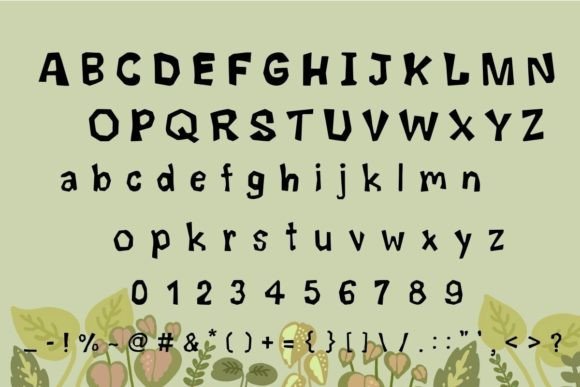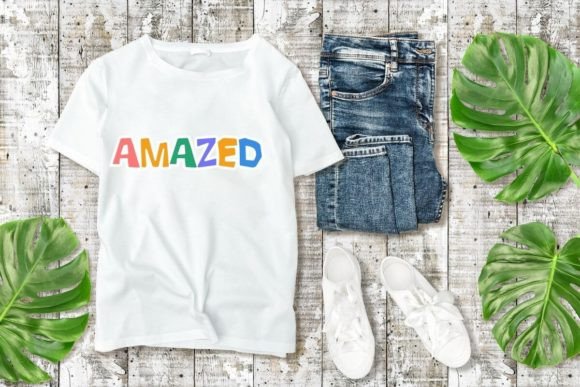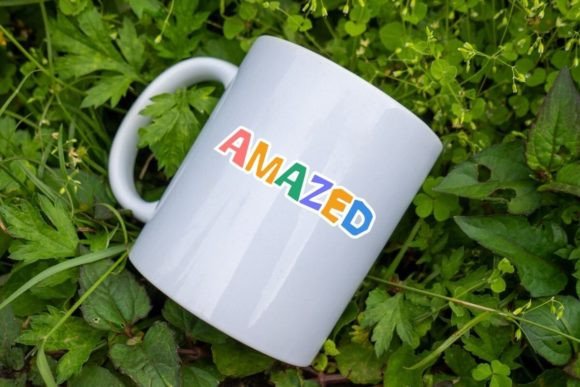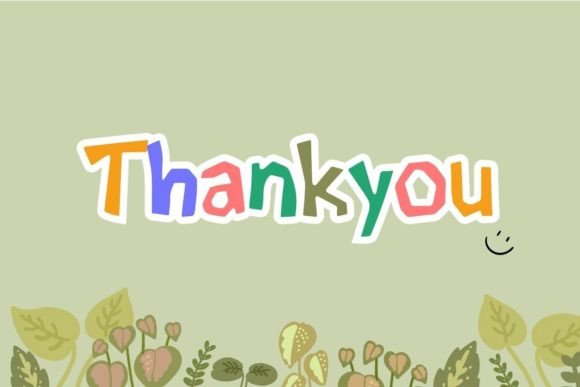
The Amazed Font: A Cute and Friendly Companion for Your Design Journey
I’ll never forget the time I was working on a project for a client who wanted a playful, handwriting-style font that would make their brand stand out. I spent hours scouring the internet for the perfect font, but nothing seemed quite right. That was until I stumbled upon the Amazed font. Its unique, natural style instantly caught my eye, and I knew I had found the perfect fit. In this article, I’ll share my experience with the Amazed font, its features, and how to make the most of it in your designs.
A Personal Review of Amazed Font
- ✨ The Amazed font has a truly unique and friendly feel to it, making it perfect for a wide range of designs.
- ✅ Its handwritten style is both natural and elegant, adding a touch of warmth to any project.
- 💫 The font is incredibly versatile, making it suitable for everything from branding and packaging to social media graphics and more.
While the Amazed font is an excellent choice for many designs, there are a few things to keep in mind:
- ⚠️ The font may not be the best choice for very formal or corporate designs, as its playful style may not fit the tone.
- 🤔 Some users have reported issues with kerning, but this can usually be adjusted in most design software.
The Story Behind Amazed Font
The Amazed font was created by a talented designer who wanted to craft a font that would bring a touch of warmth and personality to designs. Inspired by the beauty of handwritten script, the designer poured their heart and soul into creating a font that’s both unique and versatile. Today, the Amazed font is a popular choice among designers and crafters, and its uses continue to grow and evolve.
| Font Name | Amazed Font |
| Author | Jan Jao studio |
Q: What type of designs is the Amazed font best suited for?
A: The Amazed font is perfect for a wide range of designs, including branding, packaging, social media graphics, and more.
Q: Is the Amazed font easy to read?
A: Yes, the Amazed font is designed to be clear and easy to read, making it perfect for body text and headlines.